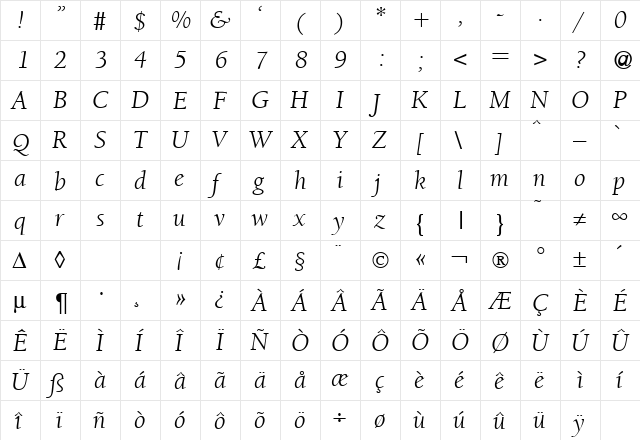
BergmannOldStyle RegularItalic
Design Context for BergmannOldStyle Typeface
BergmannOldStyle brings classic typographic sensibility to the table — its serifs and measured letterforms reflect centuries of print heritage. The dynamic lean of this cut emphasises speed and emphasis in any layout.